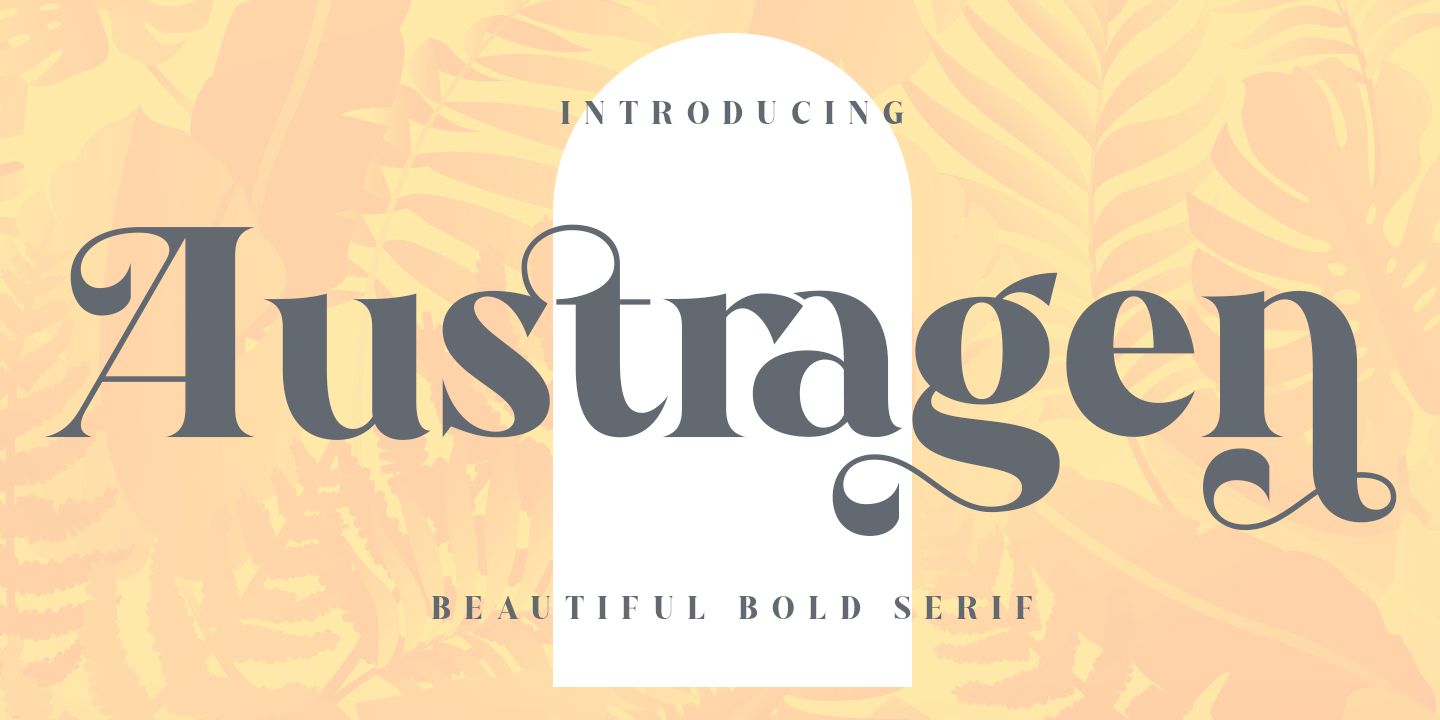
Austragen Font is perfect for German engineering firm branding, precision manufacturing documentation, systematic industrial communications, Austrian cultural institution materials, Central European business presentations, methodical quality assurance systems, German-Austrian trade organization graphics, precision engineering educational programs, systematic production facility signage, and distinguished Germanic industrial excellence marketing.
What makes Austragen Font so exciting is its extraordinary ability to embody the legendary precision and systematic excellence that defines Germanic engineering culture through methodically structured letterforms that seem crafted according to the same rigorous standards that create the world's most reliable machinery and blessed with the kind of institutional authority that flows through centuries of Germanic commitment to precision, quality, and the systematic pursuit of engineering perfection. This font captures the essence of Germanic industrial excellence and cultural thoroughness, featuring systematically refined characters that appear designed to carry the weight of technical documentation and the promise of delivering solutions engineered to perform flawlessly under the most demanding conditions. The methodically crafted letter shapes create an atmosphere of engineering authority and Germanic reliability, making every word feel like it honors the tradition of Germanic craftsmanship and carries the guarantee of systematic excellence that has made Germanic engineering synonymous with precision, durability, and uncompromising quality standards.
The Austragen Font family includes Ultra Light, Light, Regular, Medium, Bold, and Heavy weights, along with corresponding condensed variations for efficient technical applications. Each style maintains the font's distinctive Germanic character while offering complete versatility for different engineering applications, from detailed technical specifications to commanding industrial headlines that celebrate Germanic achievements in precision manufacturing and systematic innovation.
This distinguished typeface brings authentic Germanic engineering aesthetics to contemporary design projects. The Austragen Font Free Download provides designers with an exceptional tool to create memorable brand identities that communicate systematic excellence, Germanic precision, and engineering authority. Whether you're developing Germanic industrial branding, designing technical documentation materials, or creating Central European business communications, this font delivers unmatched Germanic credibility and engineering appeal.
The expertly engineered letterforms in Austragen Font feature optimal geometric relationships and systematic proportions that ensure perfect performance across all industrial applications while expressing the methodical approach and quality consciousness that define Germanic engineering excellence. Each character has been designed to maintain maximum clarity while conveying the systematic reliability and engineering precision that separate Germanic manufacturing from conventional alternatives. The font's distinctive personality makes it ideal for applications requiring genuine Germanic authority and precision engineering credibility.
Germanic engineering and industrial professionals appreciate how Austragen Font effortlessly communicates expertise, systematic thinking, and Germanic excellence while serving international markets that recognize Germanic engineering as the global standard for precision, reliability, and systematic quality that ensures products perform exactly as specified throughout their designed service life. The comprehensive glyph set includes engineering symbols, Germanic notation, systematic indicators, and extensive international language support, ensuring global compatibility while maintaining its distinctive Austragen identity. This makes it an invaluable resource for Germanic manufacturers, engineering firms, quality organizations, and any institution seeking typography that embodies the fundamental Germanic engineering principles of systematic precision, methodical quality control, and the kind of engineering excellence that creates products capable of performing reliably under the most demanding conditions while maintaining the systematic efficiency that enables Germanic manufacturers to compete successfully in global markets through the patient application of engineering wisdom that understands true quality emerges from the systematic coordination of precise design, careful manufacturing, rigorous testing, and continuous improvement processes that ensure every product meets the exacting standards that have made Germanic engineering the preferred choice for applications where failure is not acceptable and systematic reliability is essential for success.